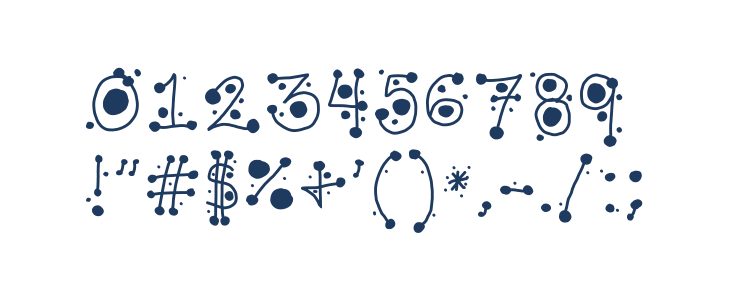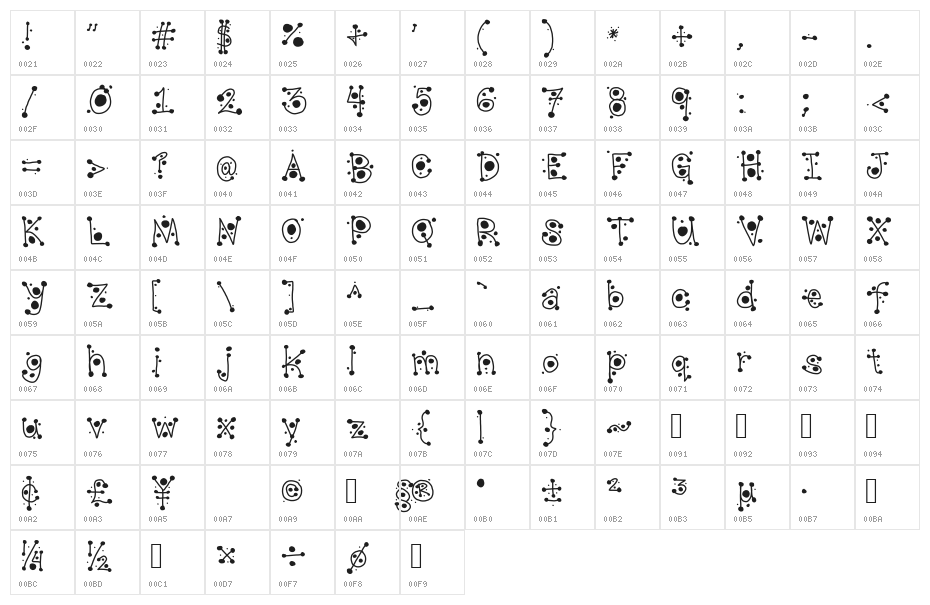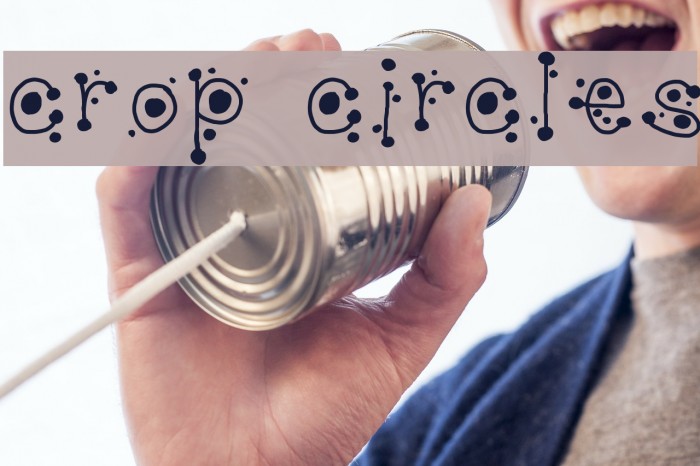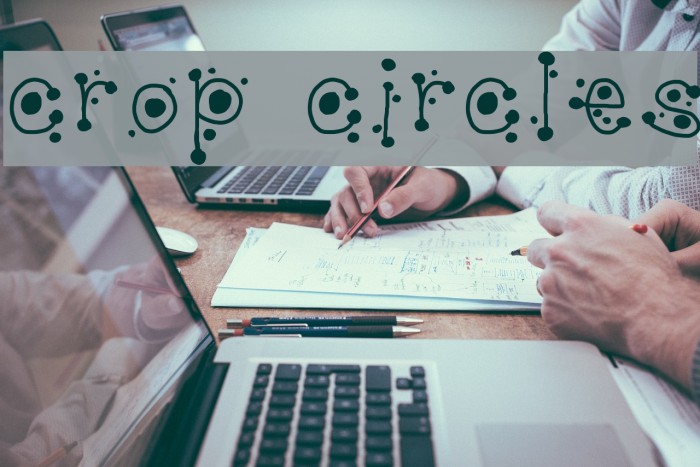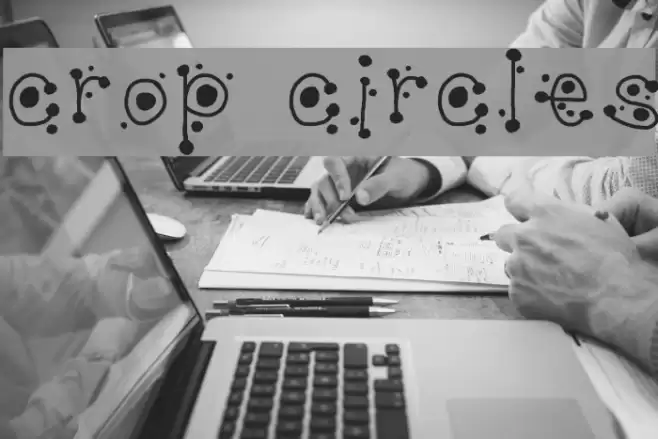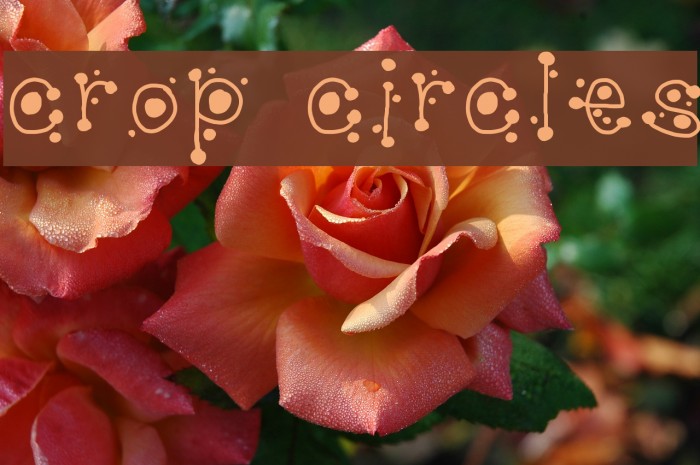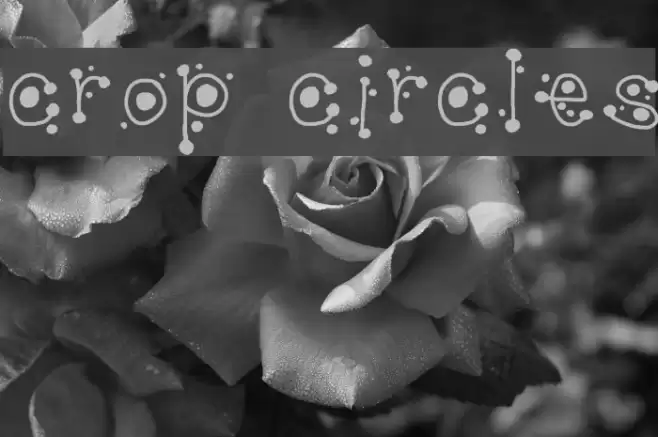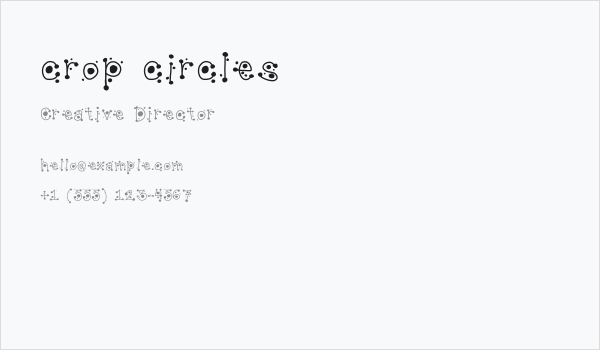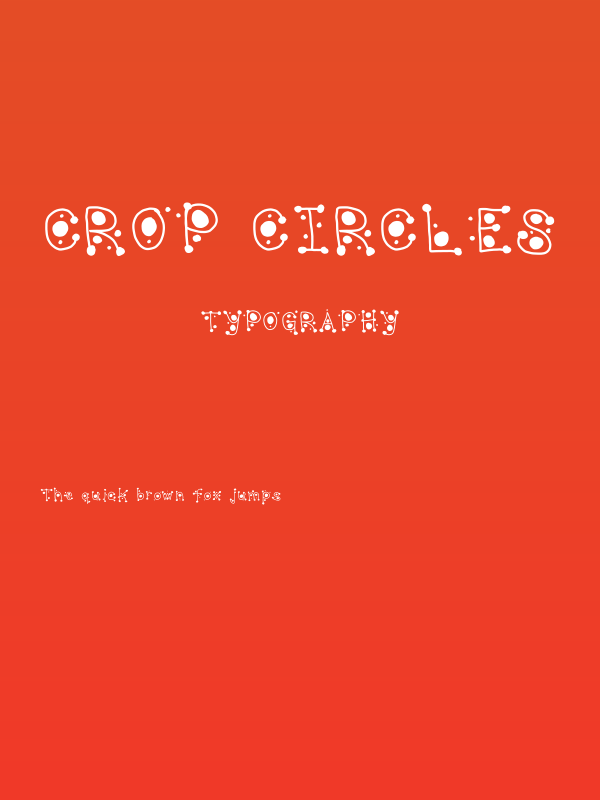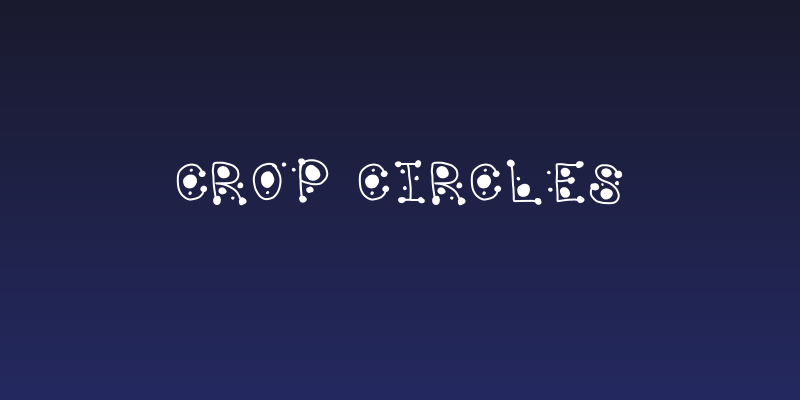
crop circles Font
crop circles Description
This font features a playful and whimsical design, characterized by its unique use of circular dots and lines that create a sense of movement and fun. Each letter and number is adorned with dots that vary in size, giving the font a dynamic and lively appearance. The overall structure of the characters is bold and rounded, with a consistent thickness that maintains readability while adding a decorative flair. The font's distinctive style makes it stand out, making it ideal for creative and artistic projects. Its quirky and imaginative design is perfect for capturing attention and conveying a sense of joy and creativity.
| Proposed Projects | Ideal for children's books, party invitations, playful branding, and creative posters. |